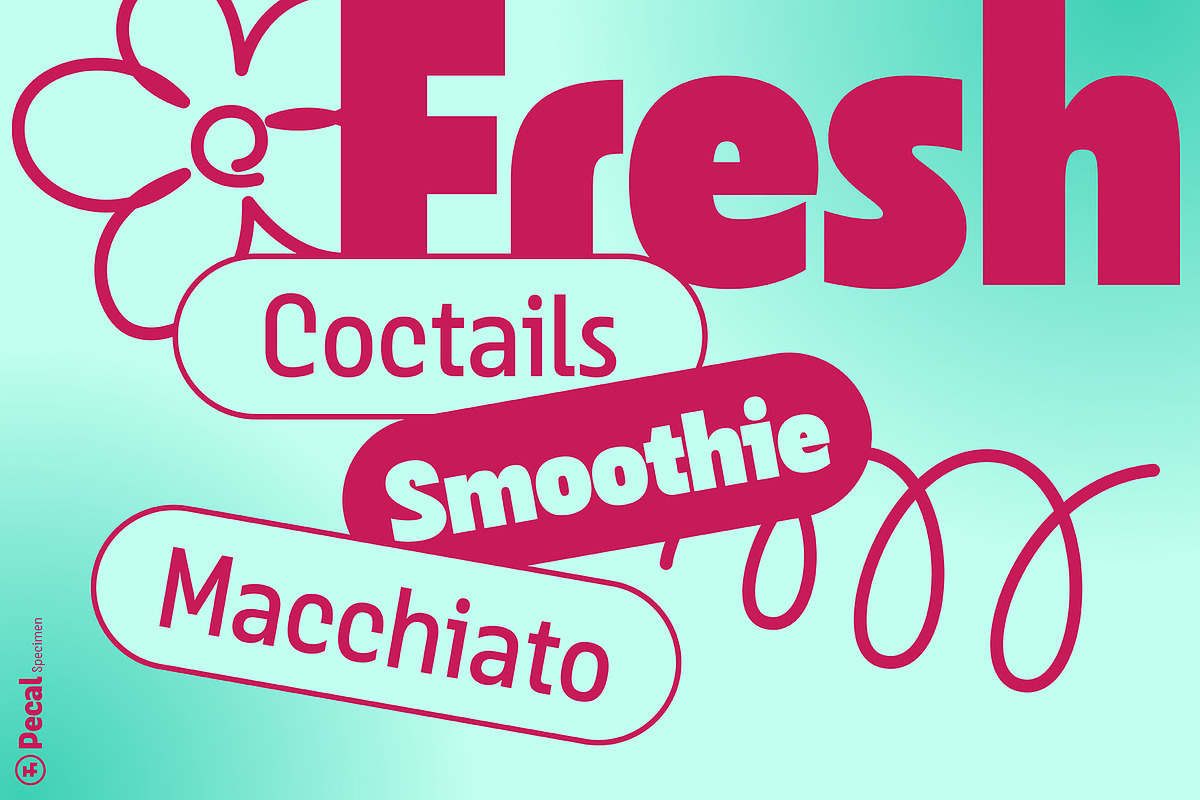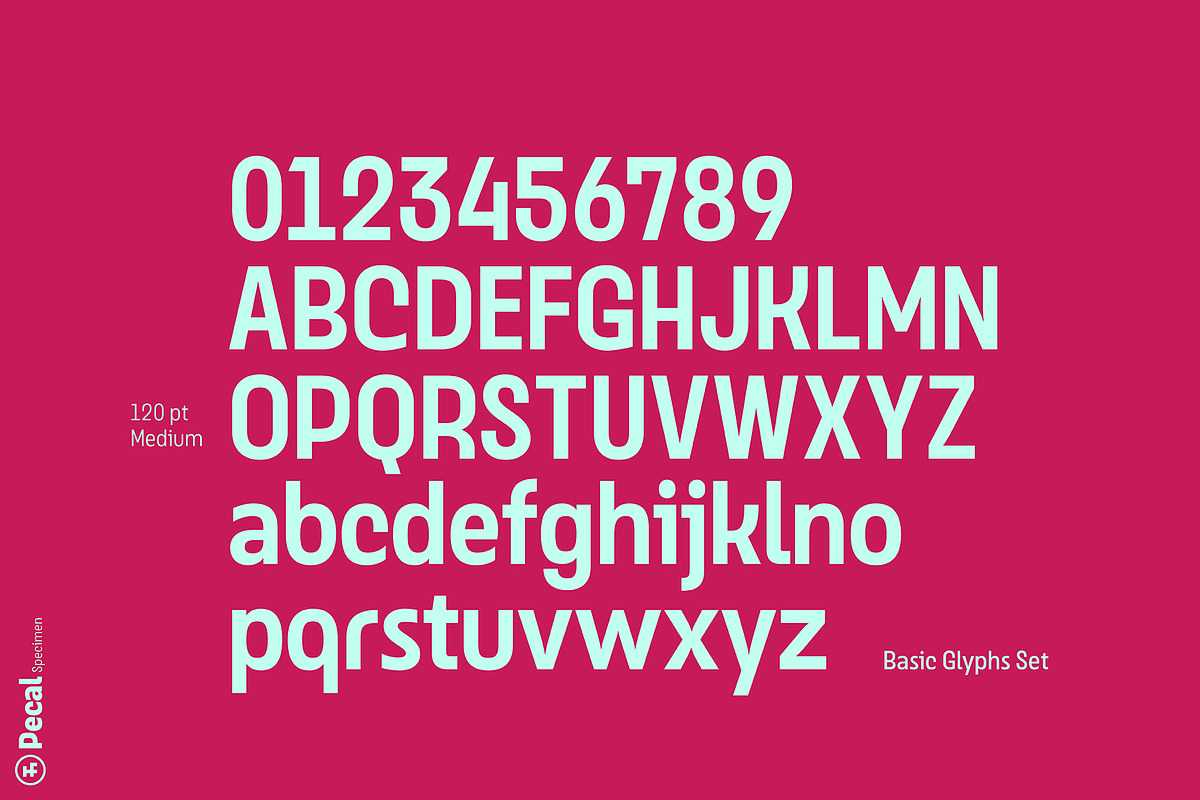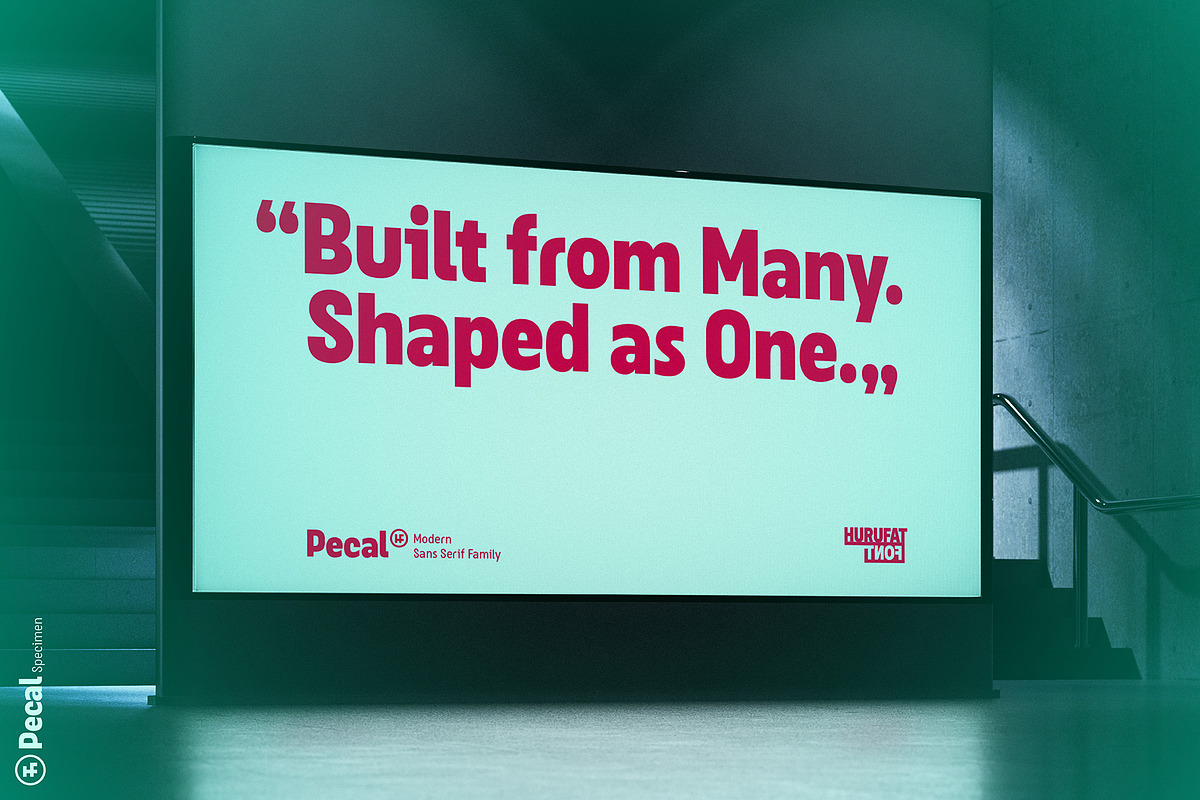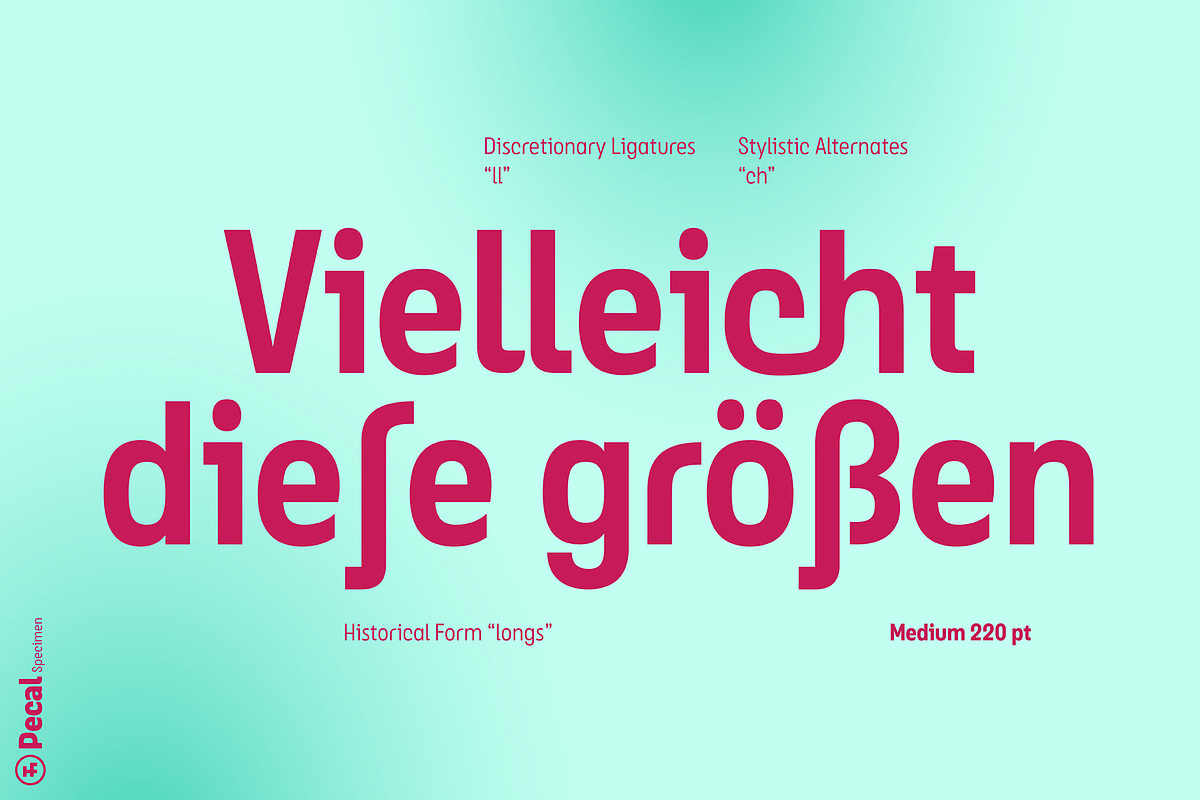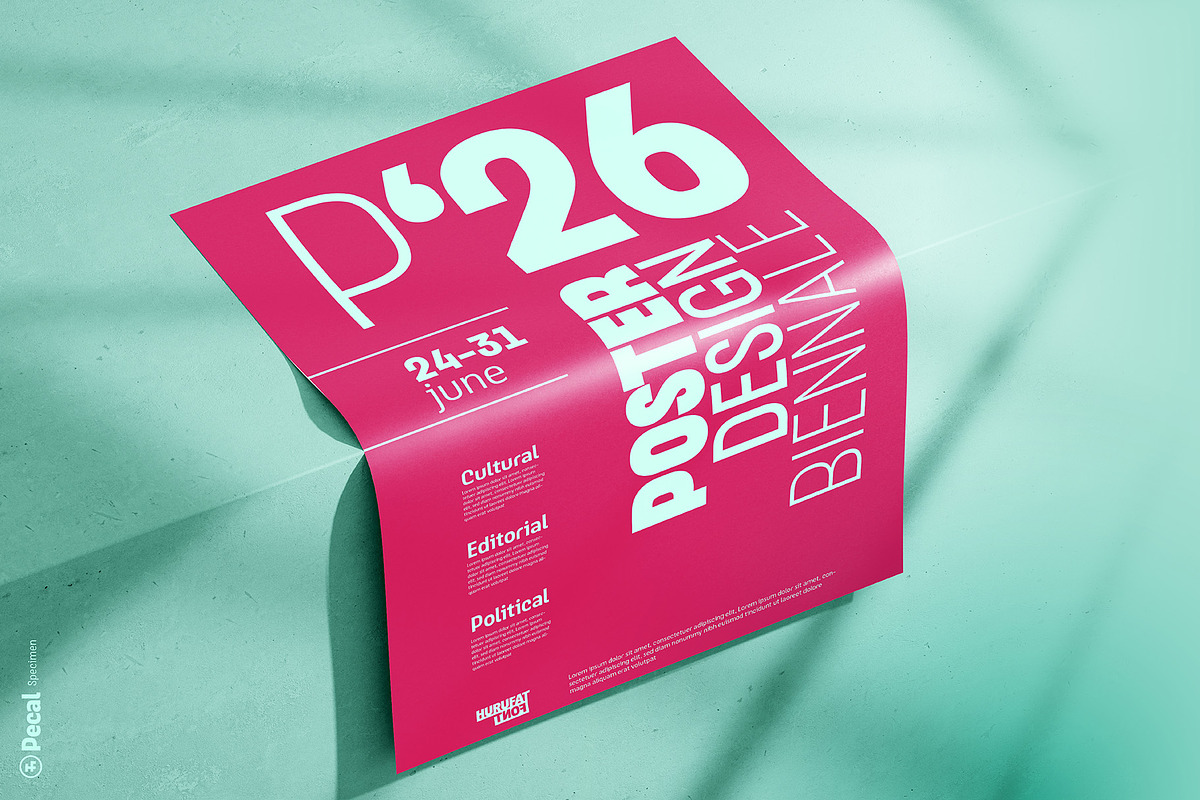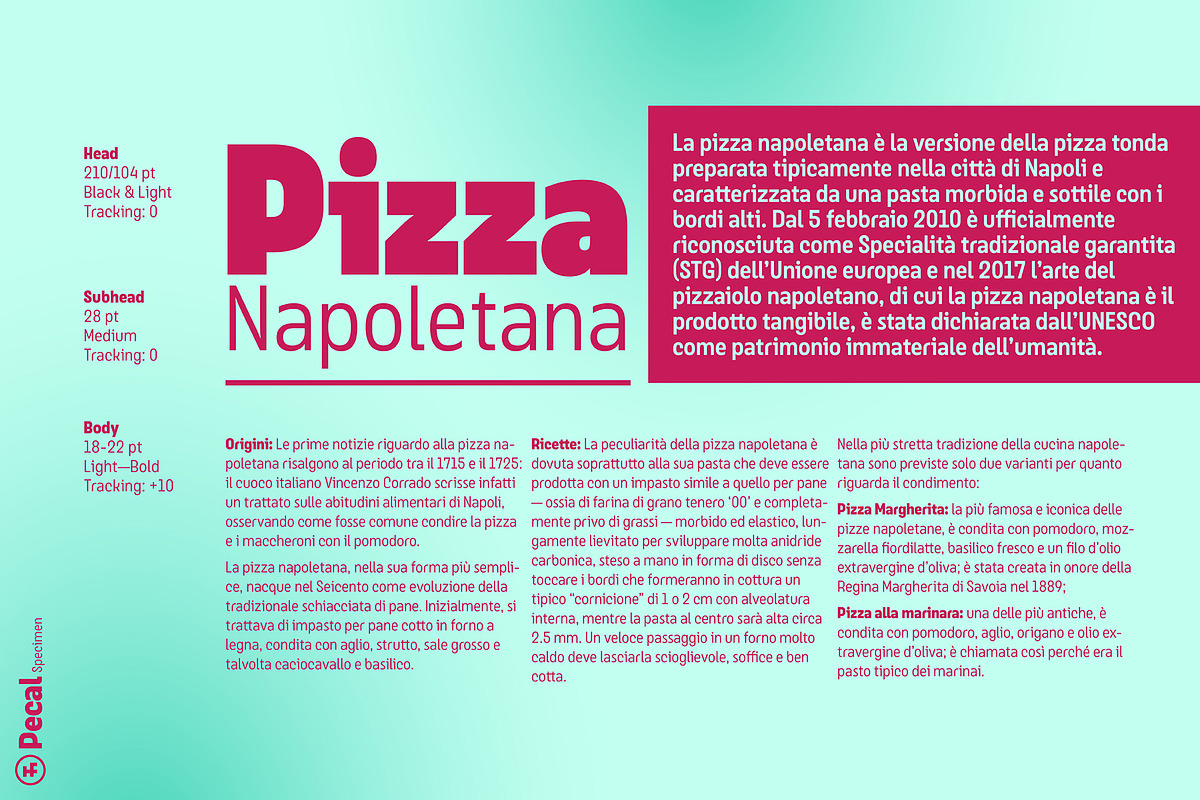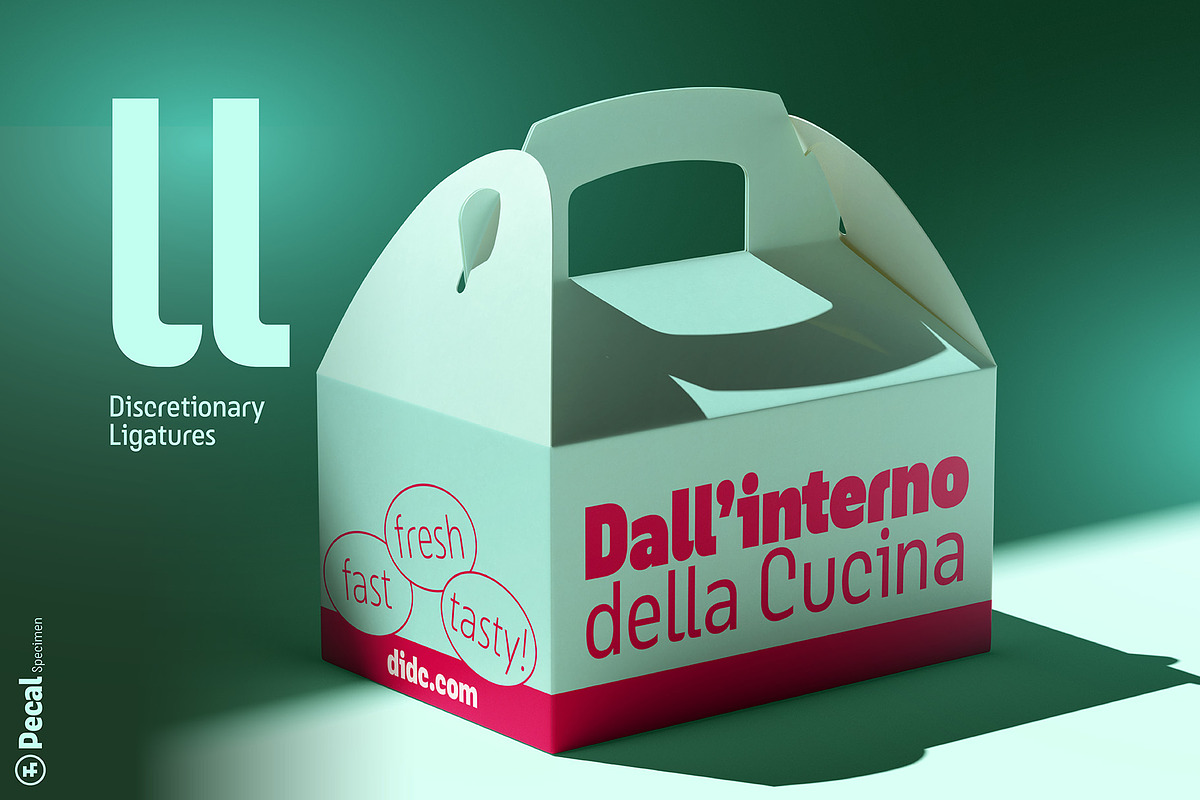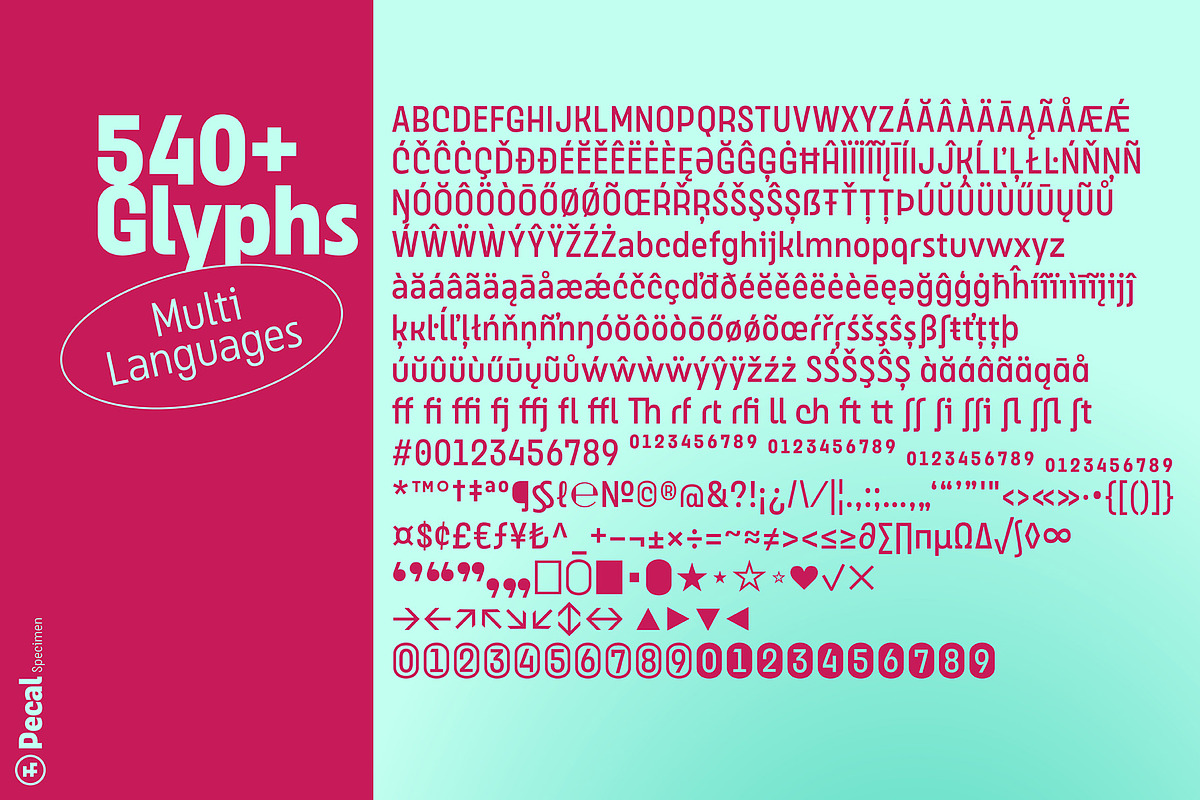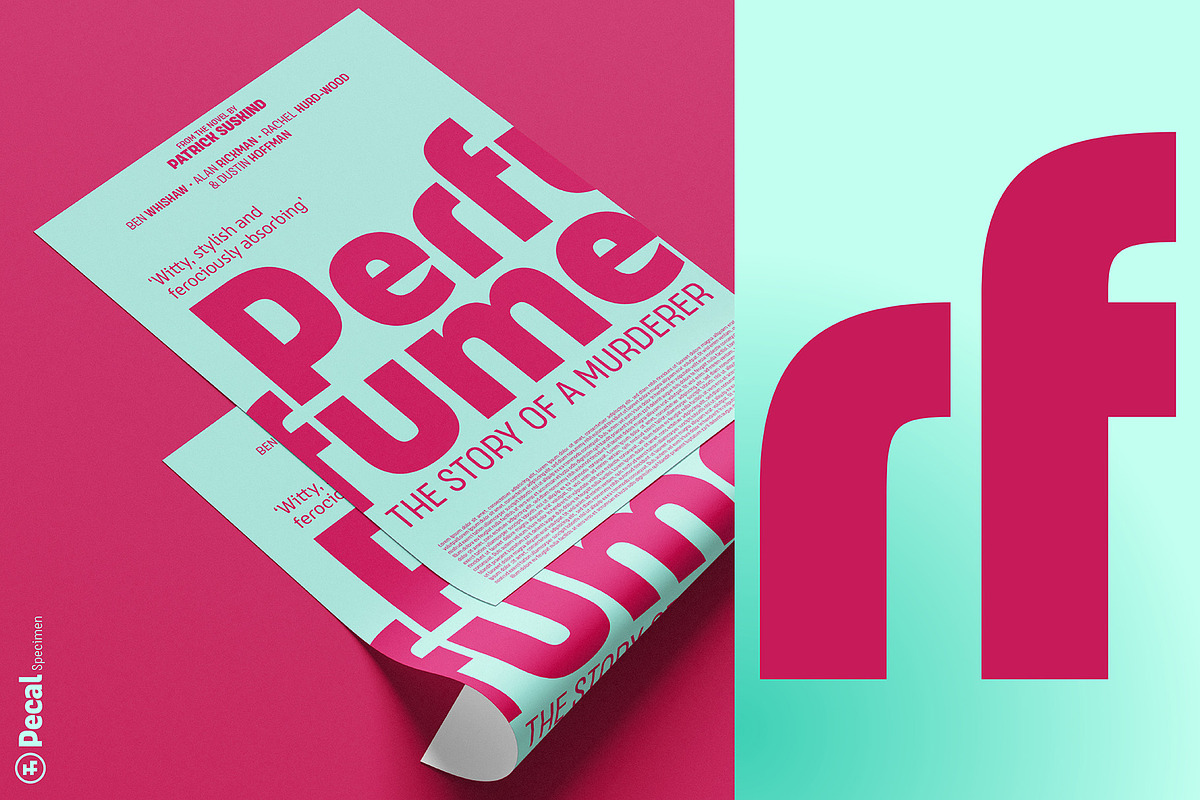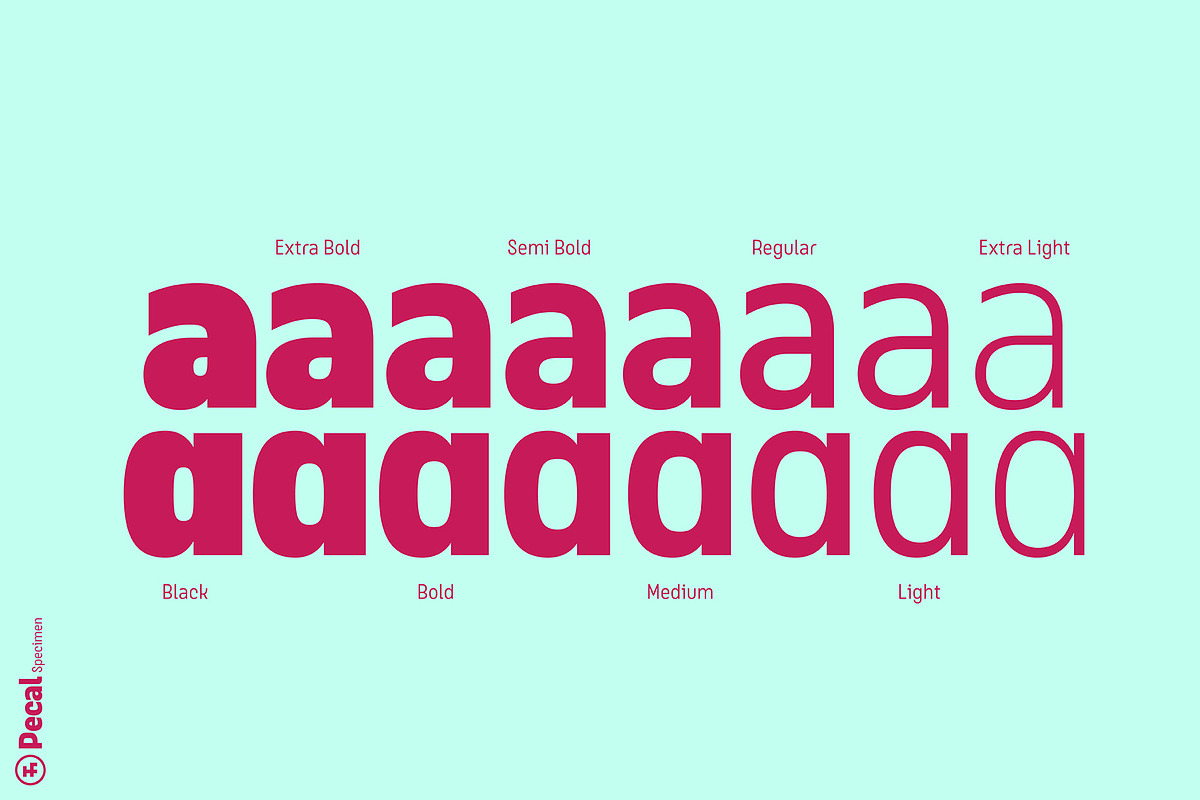
Pecal Modern Sans Serif
Pecal takes its name from the Turkish word “paçal,” a term used to describe the blending of different elements into a new and unified whole. This idea forms the foundation of the typeface’s design approach.
Rather than adhering to a single historical or stylistic tradition, Pecal is shaped through the reinterpretation of diverse typographic influences. Drawing inspiration from humanist, geometric, and grotesque sans serif traditions, its letterforms balance industrial precision with subtle organic qualities. This approach brings together multiple design languages within a cohesive system, resulting in a distinctive typographic identity.
Strong verticals, broad shoulders, and compact spacing give Pecal a commanding presence and high visual impact. The family reveals its character most clearly at larger sizes, where its bold forms reflect the energy and dynamism of contemporary visual culture.
Pecal is designed for today's creative landscape, making it particularly well suited for cultural events, festivals, innovative packaging, posters, apparel graphics, and food branding. Its dynamic structure performs equally well in attention-grabbing headlines and expressive brand identities.
As its name suggests, Pecal is a contemporary character born from the convergence of different typographic ideas. It draws from familiar forms yet offers something beyond their sum, creating a visual language of its own. By bringing diverse influences together within a unified system, Pecal reflects the pluralistic and expressive spirit of contemporary design.